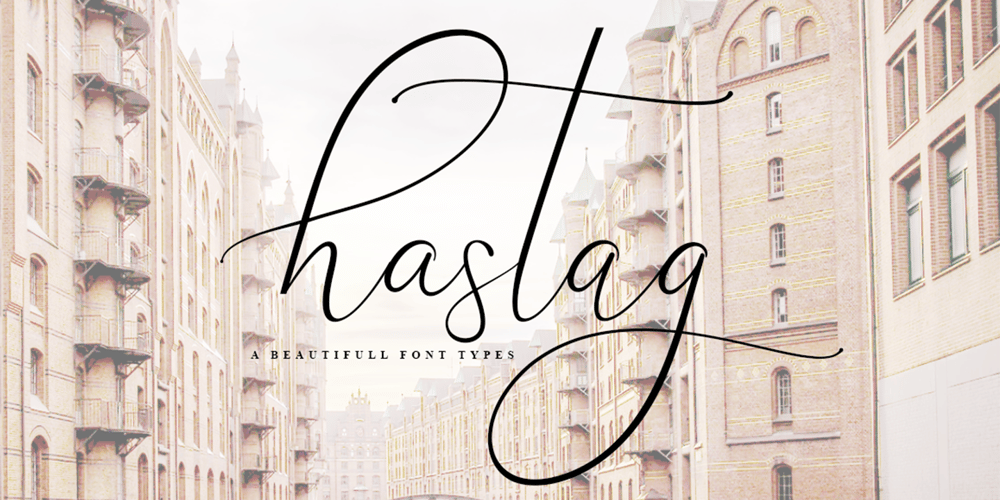
Hastag
Hastag font
Hastag Font Family was designed by Sarwo Edhi Prayitno and published by Haksen. Hastag contains 1 styles and family package options. Just introduce my New Collection font.Hastag is a beautiful font for your brand and I love using this one with Photoshop for your requirement.What include :- Ligature- alternates for lowercase